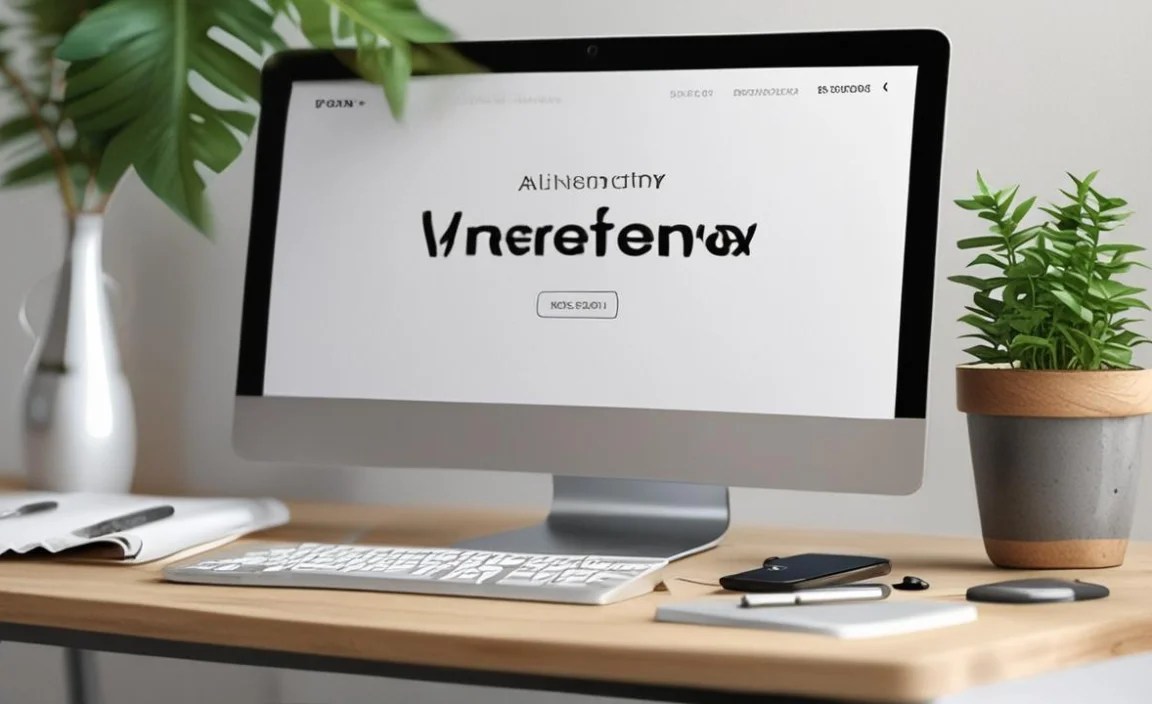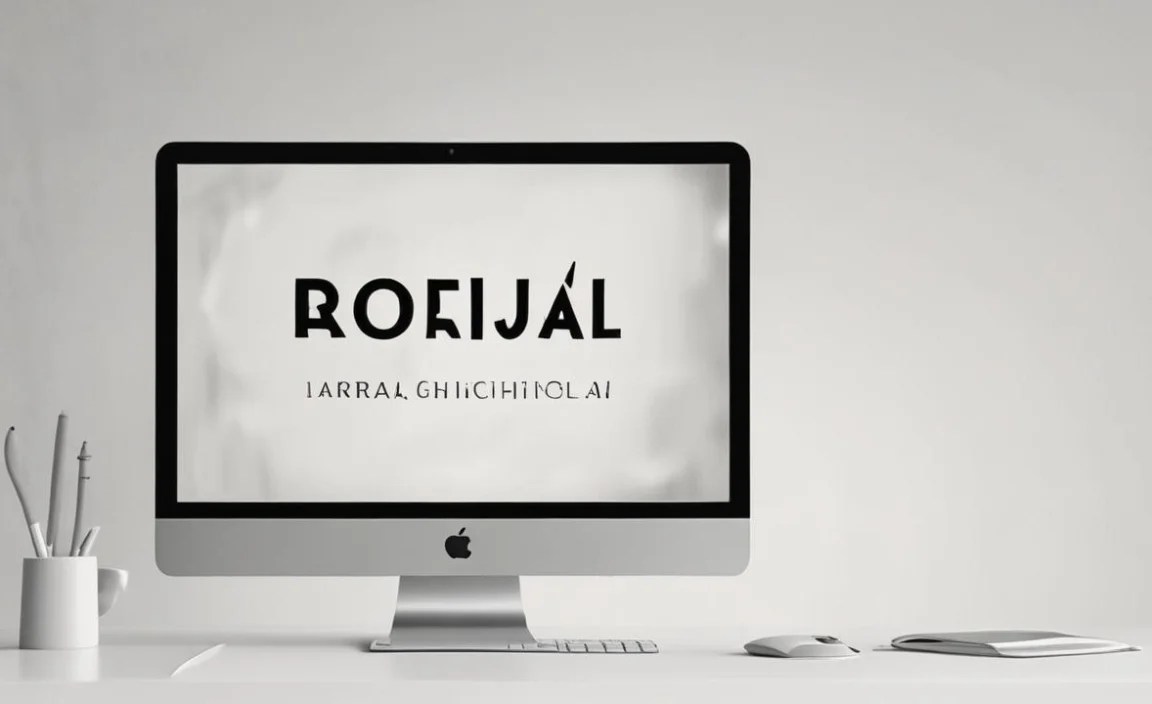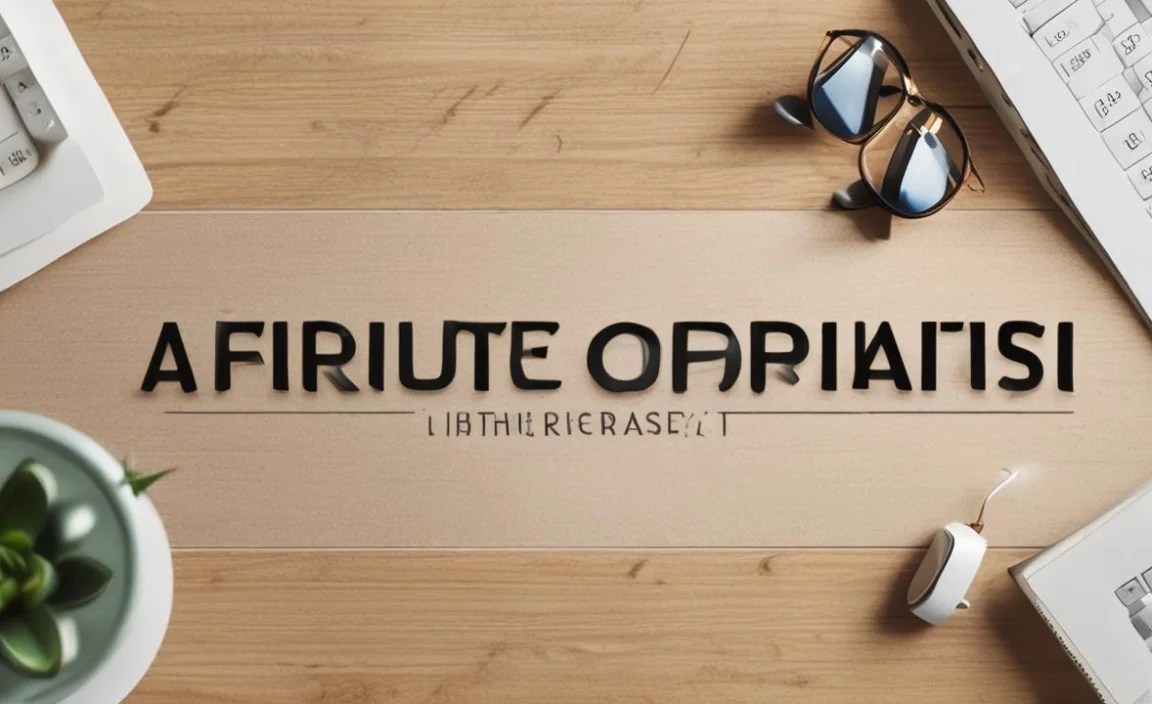
Arial is a widely used sans-serif typeface known for its versatility and clean design. Created by Robin Nicholas and Patricia Saunders in 1982, Arial has become a standard in the digital and print worlds. Its modern and neutral appearance makes it suitable for a variety of applications, from web design to corporate branding.
Arial Font Information
| Name | Arial |
| Designer | Robin Nicholas, Patricia Saunders |
| Type | Neo-Grotesque Sans-serif |
Arial Font Family Includes
- Arial Regular
- Arial Italic
- Arial Bold
- Arial Bold Italic
- Arial Black
- Arial Black Italic
- Arial Narrow
- Arial Narrow Italic
- Arial Narrow Bold
- Arial Narrow Bold Italic
- Arial Rounded MT Bold
- Arial Unicode MS
- Arial Light
- Arial Light Italic
- Arial Medium
- Arial Medium Italic
- Arial Monospaced
- Arial Monospaced Bold
- Arial Condensed
- Arial Condensed Italic
- Arial Condensed Bold
- Arial Condensed Bold Italic
Where Arial Font Is In Use
Arial Font FAQs
2.Why Do Designers Choose Arial?
Designers choose Arial for its versatility, readability, and clean design, making it ideal for a wide range of applications.
3.What Trends Are Emerging For Arial?
Emerging trends for Arial include its continued use in digital media and user interface design, where clarity and legibility are paramount.
4.When Did Arial Become Available?
Arial was introduced in 1982 and designed as a modern and adaptable typeface for various uses.
5.What Free Font Closely Resembles Arial?
“Helvetica” is often considered a close alternative to Arial, sharing a similar clean and modern aesthetic.
6.How Many Fonts Are In The Arial Family?
The Arial font family includes a range of styles and weights, from Regular to Black, including italic and narrow versions, making it a total of 11 styles.
7.What Different Versions Of Arial Exist?
The Arial font family includes versions like Regular, Italic, Bold, Bold Italic, Black, Narrow, and Rounded, each offering different weights and styles for varied design needs.